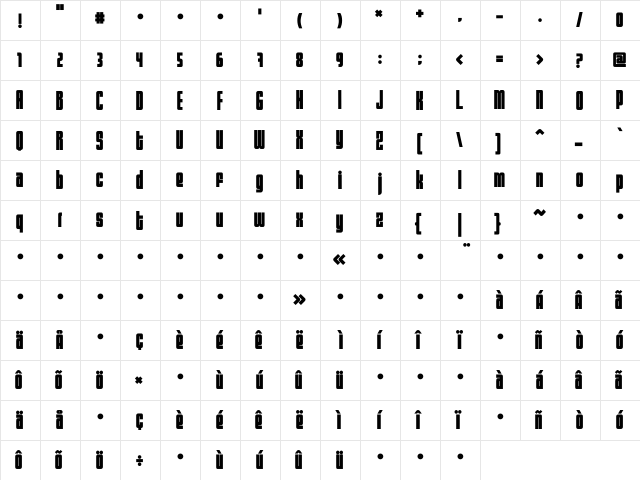
Sumo Regular
Design Context for Sumo Typeface
Sumo offers clean, dependable letterforms without strong stylistic allegiance, making it a practical choice for designers who need flexibility.